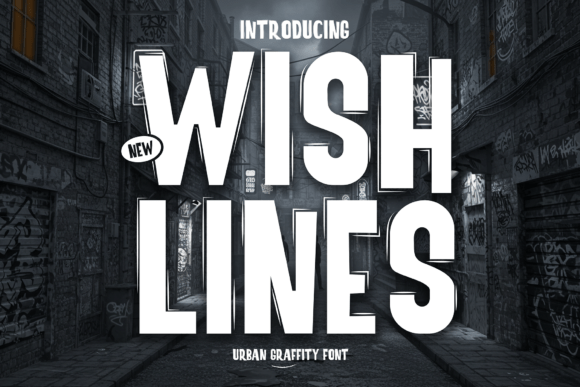
Wish Lines Font: Elevate Your Designs with a Graffiti Twist
In the world of design, fonts play a crucial role in conveying messages, expressing emotions, and creating a lasting impression. For those looking to add a bold, dynamic, and authentic street art vibe to their projects, the Wish Lines Font is an excellent choice. This graffiti font combines the raw energy of street art with a modern and cool aesthetic, making it perfect for grabbing attention and making a statement.
Key Features of Wish Lines Font
- Bold and Dynamic Lines: The Wish Lines Font features bold, expressive lines that give your designs a vibrant and energetic feel.
- Authentic Street Art Vibe: Inspired by the streets, this font captures the essence of graffiti art, adding an edgy and urban touch to your projects.
- Versatile: Whether you’re working on cartoons, branding, logos, or any other design project, Wish Lines Font is versatile enough to make a significant impact.
- Modern and Cool Look: The font’s unique style gives your designs a modern and cool aesthetic that’s sure to stand out.
Creative Uses of Wish Lines Font
The Wish Lines Font is incredibly versatile and can be used in a variety of design projects. Here are some creative ways to incorporate this graffiti font into your work:
- Cartoons and Comics: Add a graffiti twist to your cartoons and comics with Wish Lines Font. Its bold lines and dynamic style are perfect for speech bubbles, titles, and character quotes.
- Branding and Logos: Create memorable and impactful logos with Wish Lines Font. Its unique style will help your brand stand out and convey a modern, edgy image.
- Posters and Flyers: Use Wish Lines Font to create eye-catching posters and flyers. Its bold and dynamic lines will grab attention and make your message hard to ignore.
- Social Media Graphics: Elevate your social media graphics with Wish Lines Font. Whether you’re creating Instagram posts, Facebook graphics, or Twitter headers, this font will add a cool and modern touch.
- Merchandise: Design trendy and stylish merchandise with Wish Lines Font. From t-shirts to stickers, this font will give your products a unique and appealing look.
Tips for Using Wish Lines Font Effectively
To get the most out of Wish Lines Font, consider the following tips:
- Combine with Images: Pair Wish Lines Font with relevant images or graphics to enhance its impact. This combination works particularly well for posters, flyers, and social media graphics.
- Experiment with Colors: Don’t be afraid to experiment with different colors. The bold lines of Wish Lines Font look great in bright, bold colors that match the dynamic vibe of the font.
- Use for Headlines: Wish Lines Font is perfect for headlines and titles. Its bold and dynamic style makes it easy to grab attention and draw the reader’s eye.
- Mix with Other Fonts: For a more layered look, try mixing Wish Lines Font with other fonts. A combination of bold and simple fonts can create a visually appealing design.
The Benefits of Using Wish Lines Font
There are several benefits to using Wish Lines Font in your design projects:
- Unique Style: Wish Lines Font offers a unique style that sets it apart from more traditional fonts. Its graffiti-inspired design adds an edgy and modern touch to any project.
- Attention-Grabbing: The bold and dynamic lines of Wish Lines Font are designed to grab attention. Whether you’re creating a poster, logo, or social media graphic, this font will help your design stand out.
- Versatility: Wish Lines Font is incredibly versatile and can be used in a variety of design projects. Its adaptability makes it a valuable addition to any designer’s toolkit.
- Easy to Use: Despite its bold and dynamic style, Wish Lines Font is easy to use and works well in both digital and print formats.
Wish Lines Font is a powerful tool for designers looking to add a bold, dynamic, and authentic street art vibe to their projects. Its unique graffiti-inspired design, bold lines, and modern aesthetic make it perfect for a variety of applications, from cartoons and branding to posters and social media graphics. By incorporating Wish Lines Font into your designs, you can create visually striking and memorable projects that stand out from the crowd.